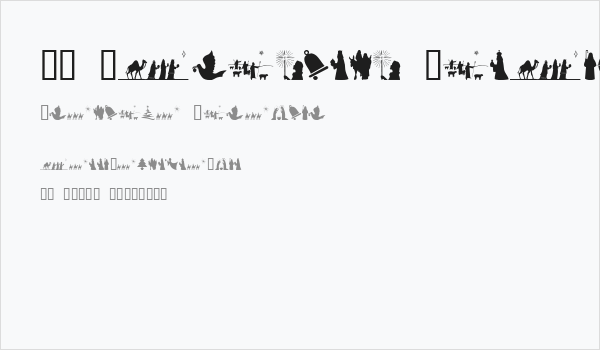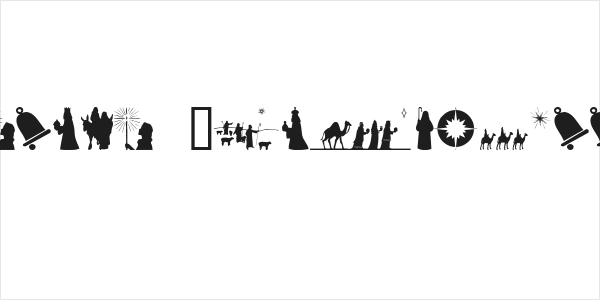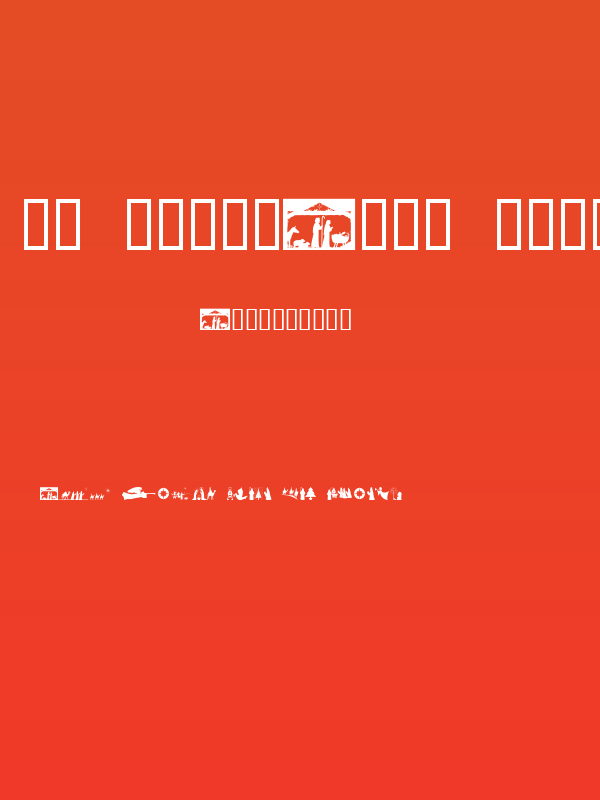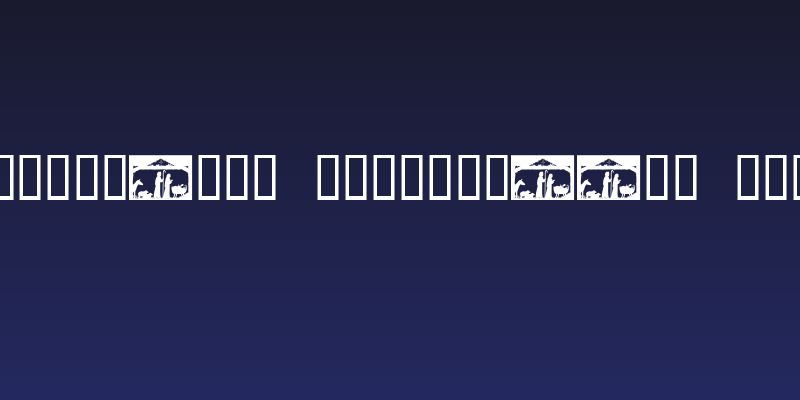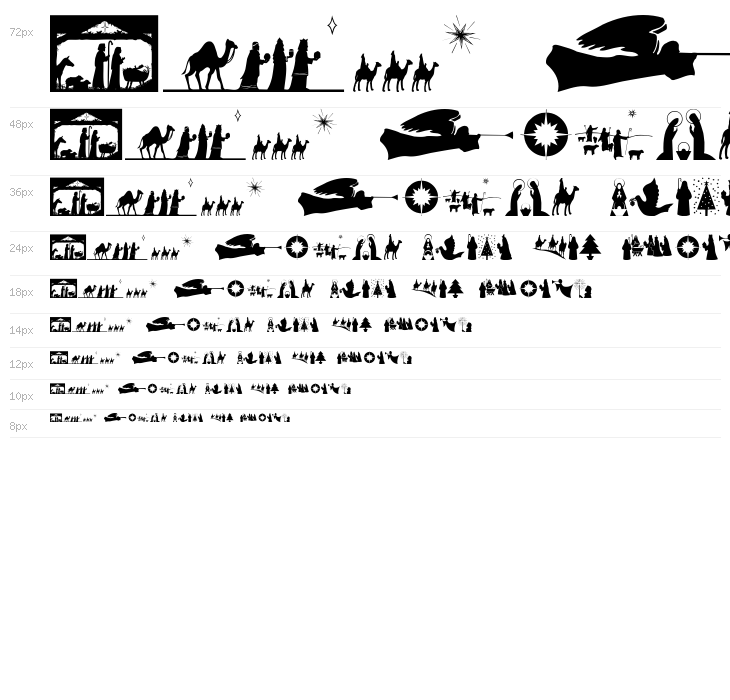
SL Christmas Silhouettes Normal Font
SL Christmas Silhouettes Normal Description
This collection features a series of Christmas-themed silhouettes, capturing iconic holiday scenes and symbols. The designs include nativity scenes, angels, the three wise men, and festive elements like Christmas trees and bells. Each silhouette is intricately detailed, providing a classic and nostalgic feel. The silhouettes are presented in a bold, black style, making them stand out against any background. These designs are perfect for adding a festive touch to holiday projects, offering a timeless and traditional aesthetic.
| Use Case | Decorative elements for holiday-themed projects. |
| Proposed Projects | Ideal for holiday cards, festive decorations, gift wrapping designs, and seasonal marketing materials. |